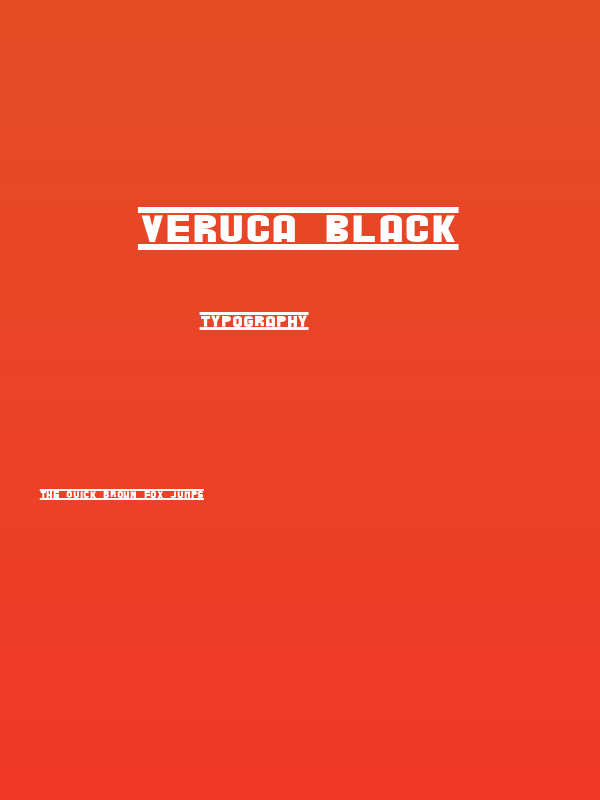
Veruca Black Font
Veruca Black Description
This font features a bold and impactful design with strong geometric shapes and a solid presence. The uppercase letters are characterized by their thick, uniform strokes and squared-off edges, creating a sense of stability and strength. The font's design is reminiscent of industrial and architectural styles, with a modern twist. The absence of lowercase letters and numbers suggests a focus on headline or display use, where boldness and clarity are paramount. The overall appearance is clean and assertive, making it suitable for projects that require a commanding visual impact.